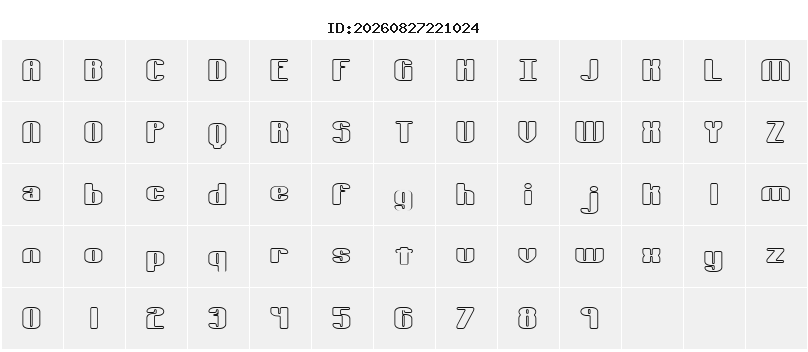
About Typesource Extol O BRK.ttf
Typesource Extol O BRK.ttf is a modern, elegant sans-serif font designed for ultimate readability and visual harmony. Perfect for branding, headlines, web design, and print materials.